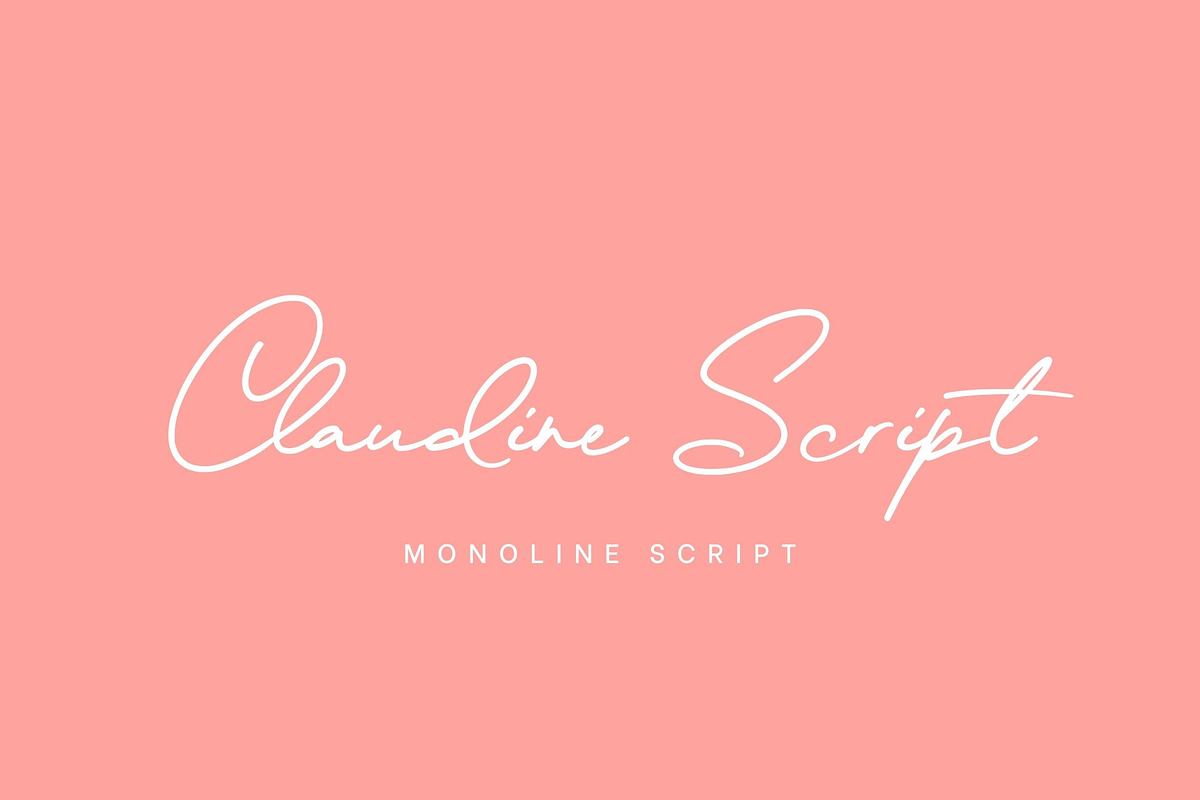
Claudine Script Font Free Download is a graceful and flowing typeface that captures the elegance of modern calligraphy. With its delicate curves, natural rhythm, and handcrafted feel, this font is perfect for wedding invitations, feminine branding, social media content, greeting cards, and elegant logos.
Whether you’re creating romantic stationery or a stylish personal brand, Claudine Script adds a luxurious, handwritten touch that elevates every design. Its soft, flowing style brings a sense of warmth and refinement to both digital and print work.